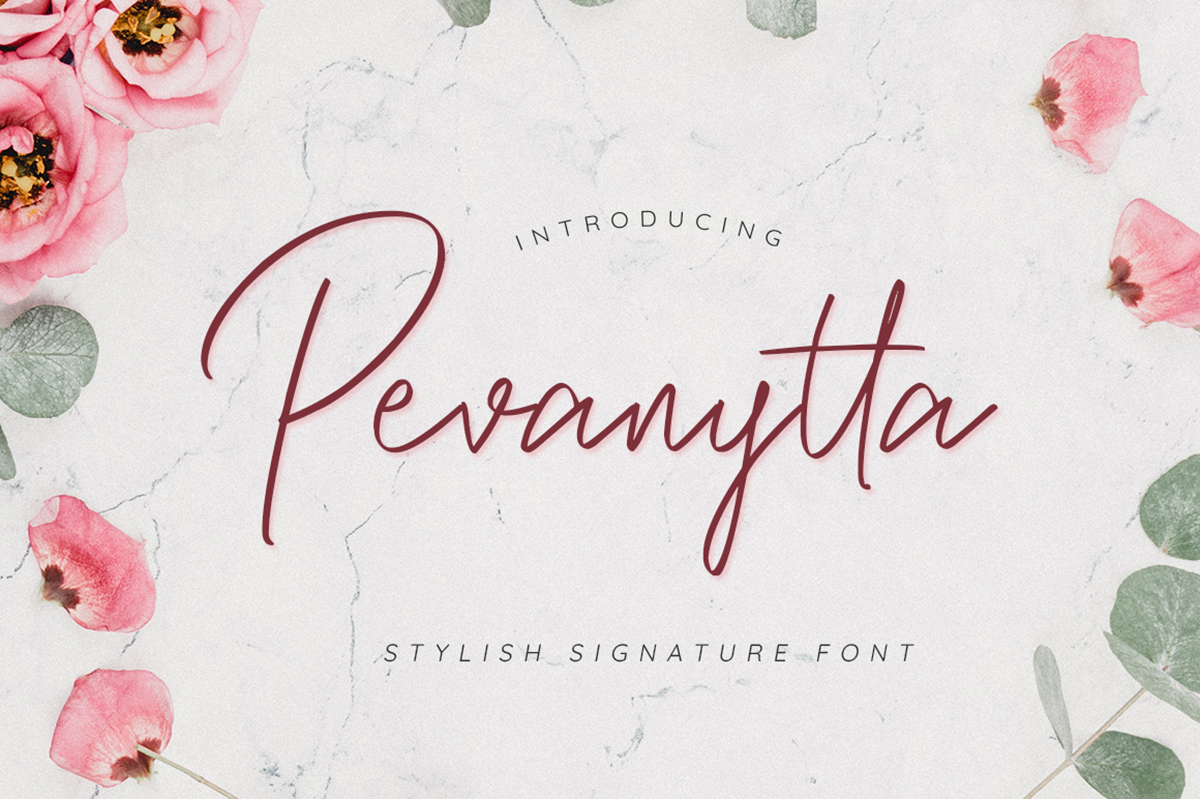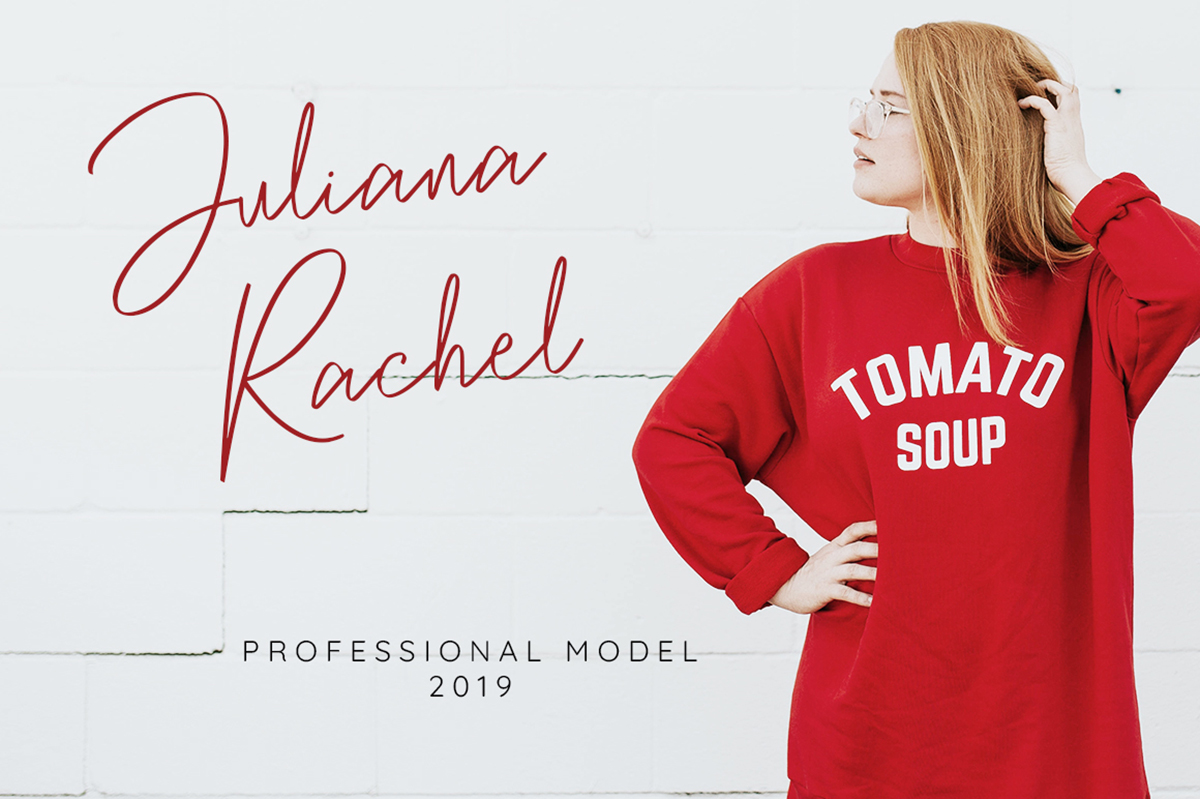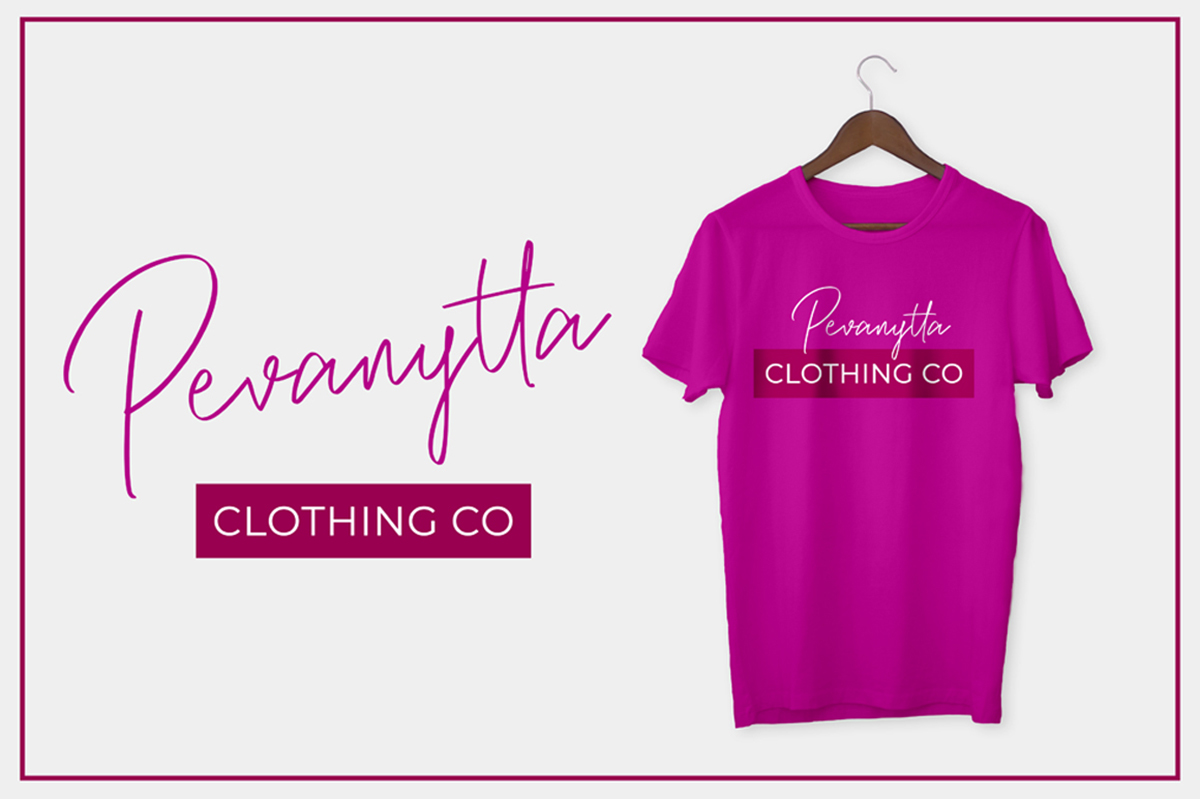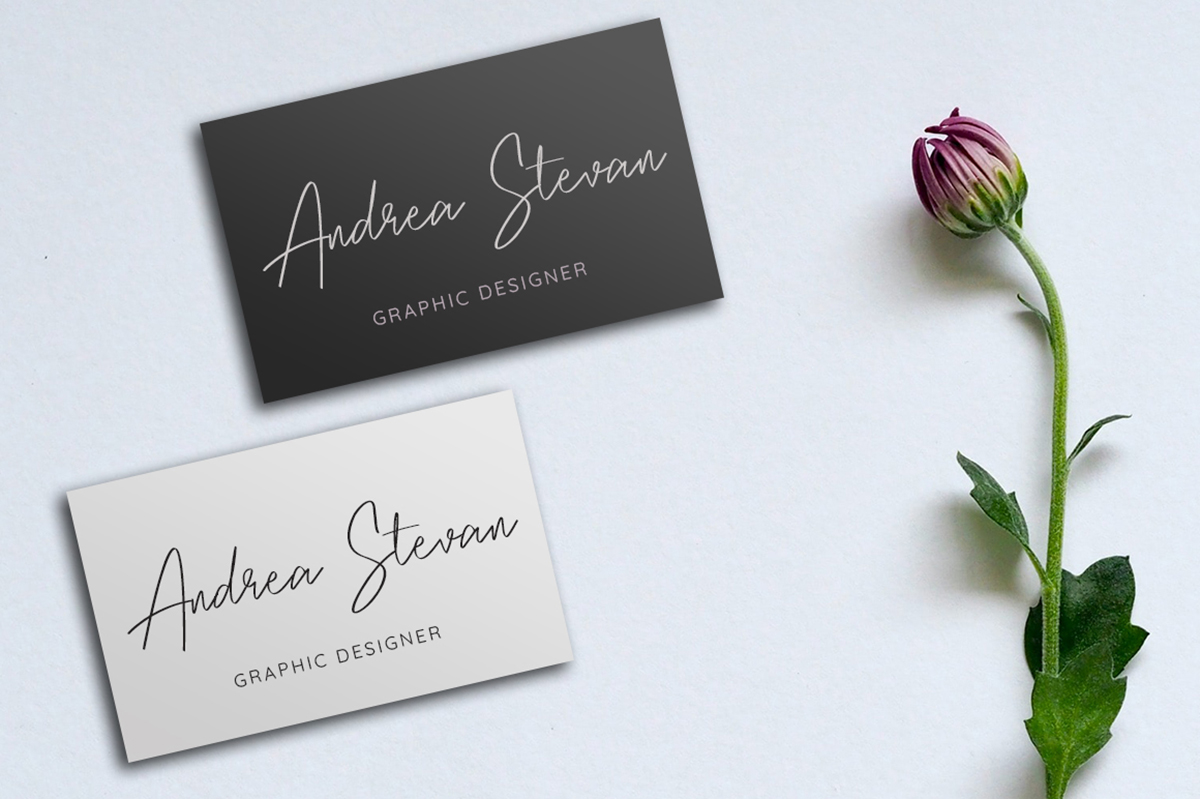
Pevanitta Free Font
Pevanitta Free Font is an interesting handwritten font that sets itself apart from other fonts in a modern style. This font is very suitable for a variety of design projects that require a quality scripting font. You can use this font to create memorable romantic posters, wedding invitations, greeting cards, branding, flyers, t-shirt and pillow prints, and more. Improve the quality and increase the popularity of your design projects by using this font. If you like it don’t forget to check out the full version.